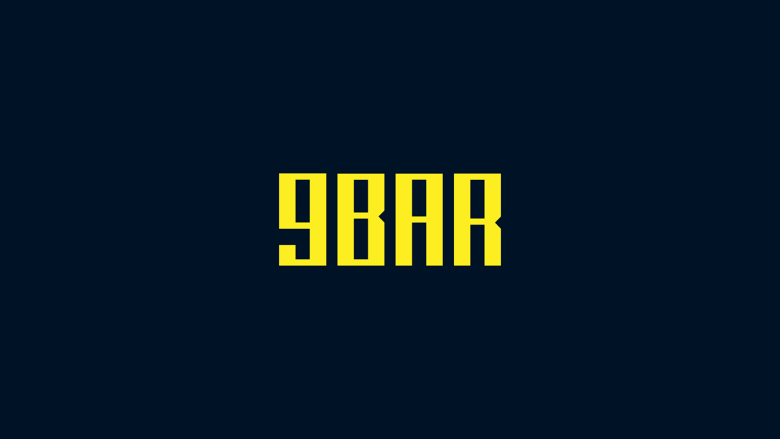
9BAR Typeface
9BAR offers a futuristic design approach and a sharp personality. Crafted & designed by Andy Kelly. 9BAR is perfect for branding projects, home-ware designs, product packaging, wedding invitations, magazine headers – or simply as a stylish text overlay to any background image.